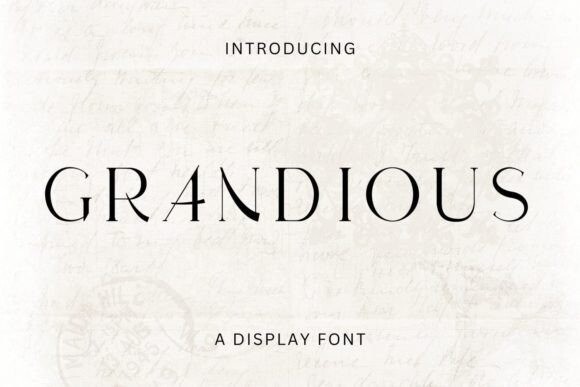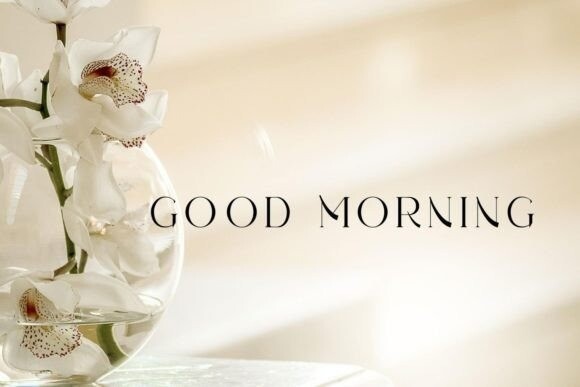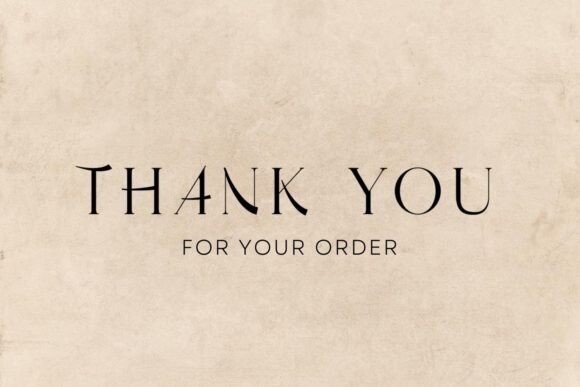
Grandious Font
Grandious is a sophisticated, charming serif display font with a fashionable touch. Specially designed for luxury, elegant, feminine projects, this font is perfectly suitable for creating modern, chic designs.